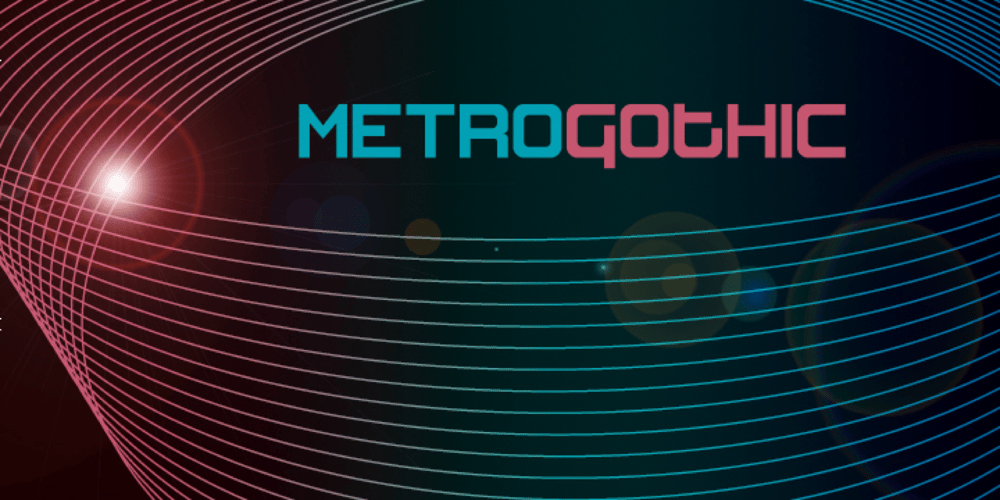
Metro Gothic Font Family was designed by Noah Rothschild and published by Victory Type. Metro Gothic contains 2 styles and family package options. Composed of two typefaces, Regular and Fat, Metro Gothic is a modern rendition of Eurostile letterforms. MG’s wide unicase characters were designed on a geometric grid while incorporating only two polygonal forms: the rectangle and quarter circle. The actual appearance of the characters aside from their metrics lends its influence to Art Deco, Bauhaus and Seventies design standards. MetroGothic is great for use in all documents but is especially effective as a headline or short caption typeface. Included is a complete glyph set including European characters, currency symbols-including the new Euro symbol and alternate caps for “E” “R” and “Y”.